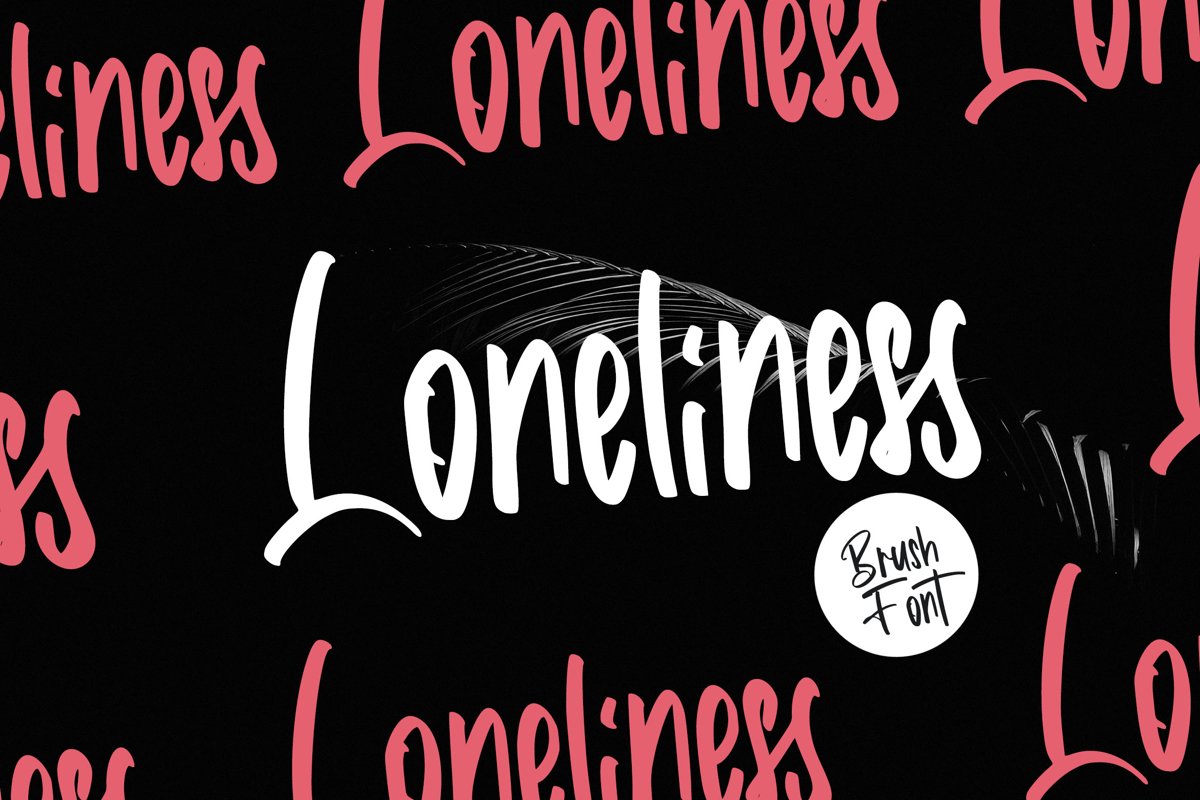
Loneliness | Brush Font
Loneliness
**Loneliness | Brush Font** with a calligraphy style, So beautiful on invitation like greeting cards, branding materials, business cards, quotes, posters, and more!